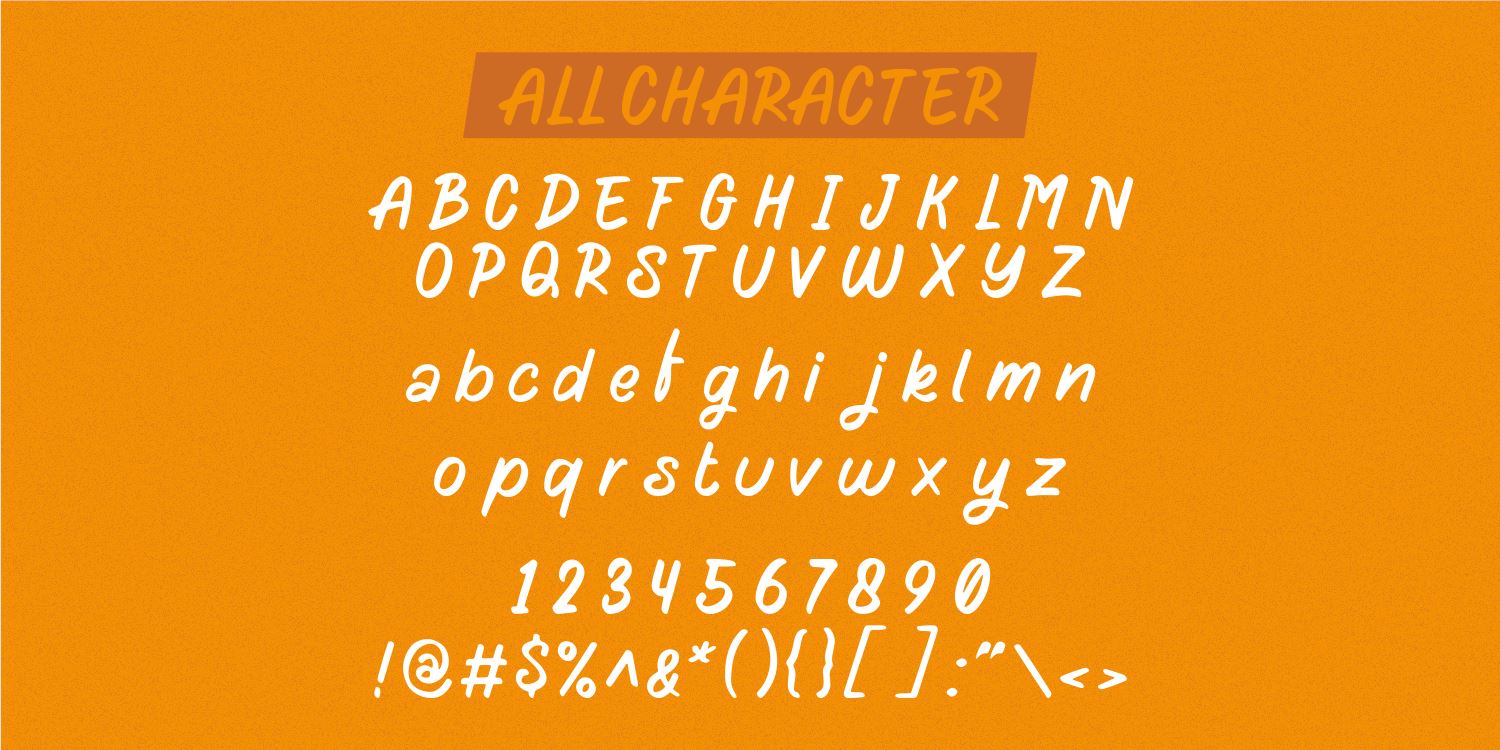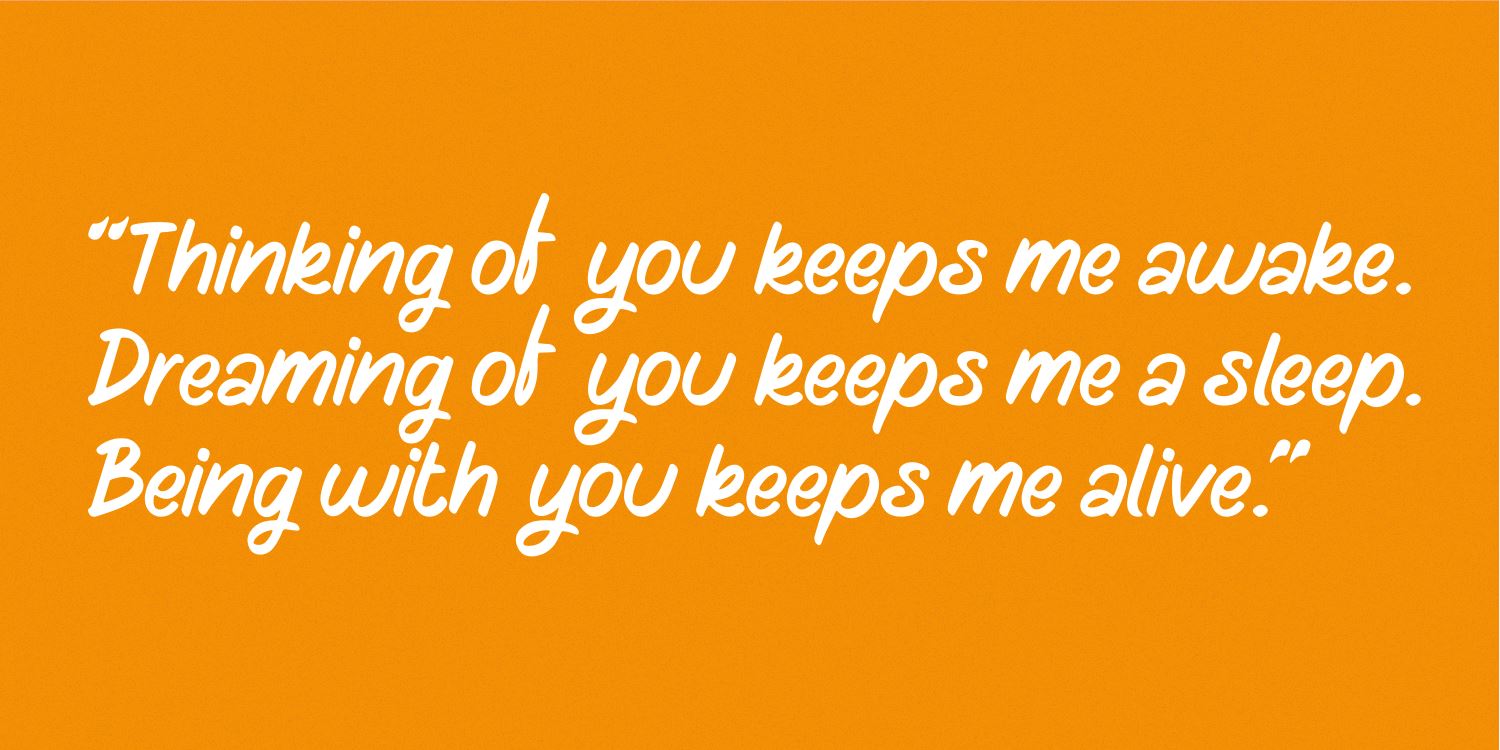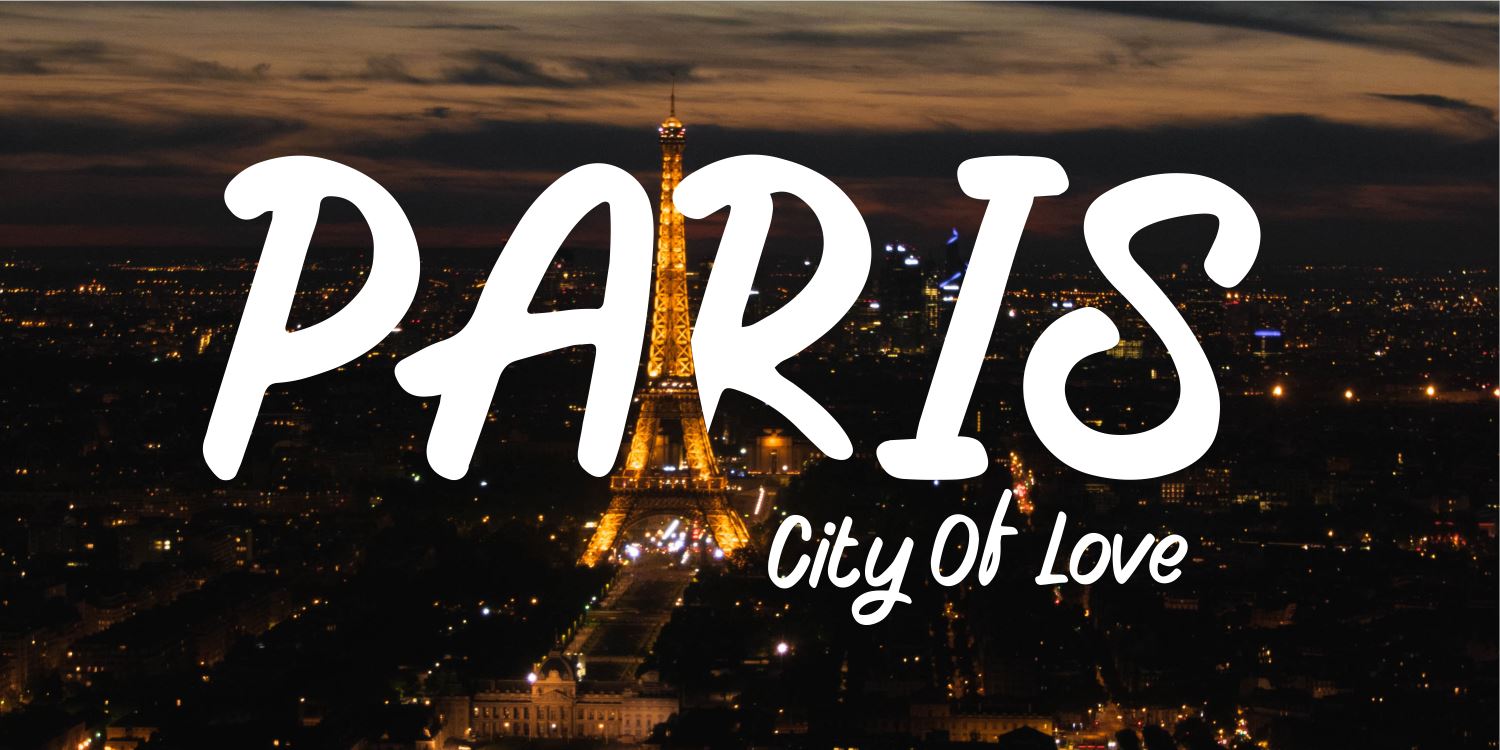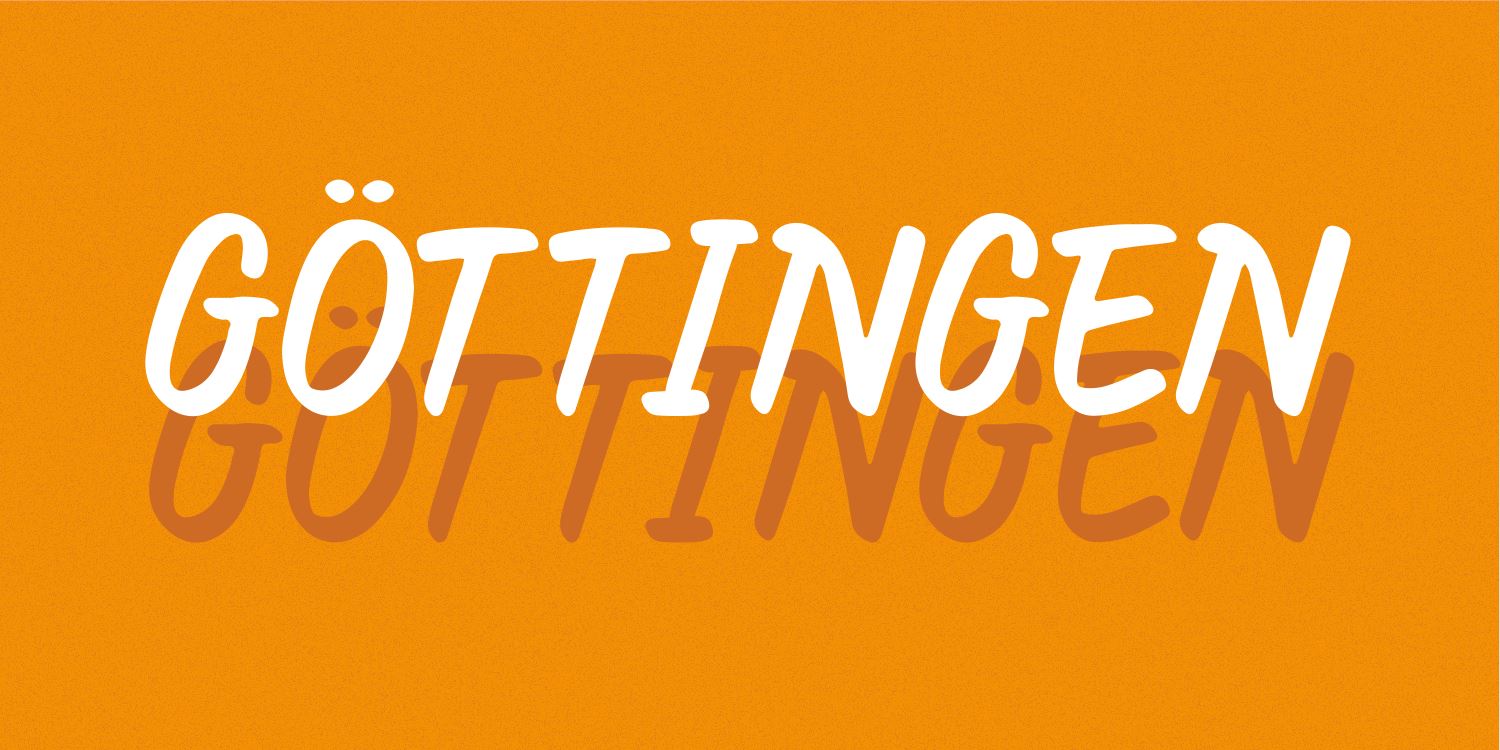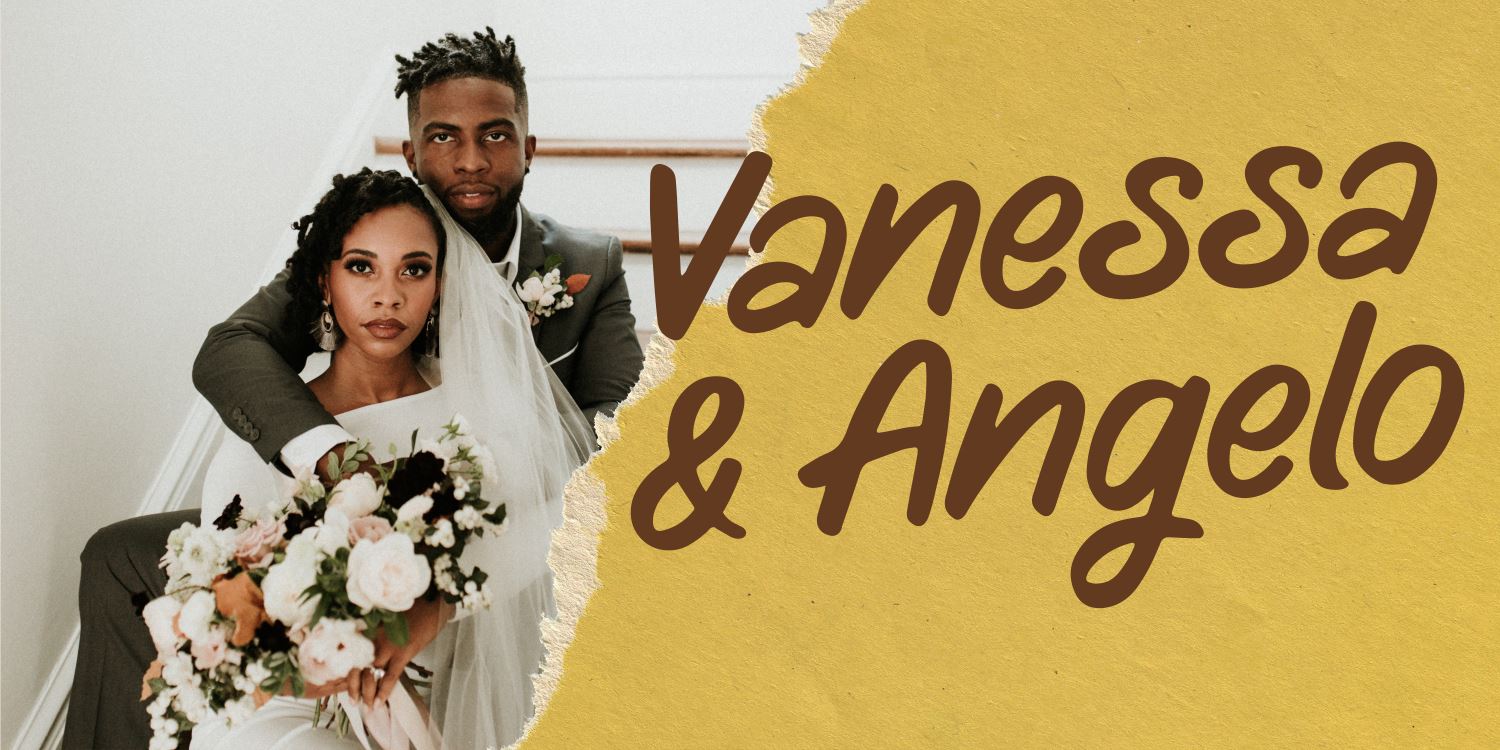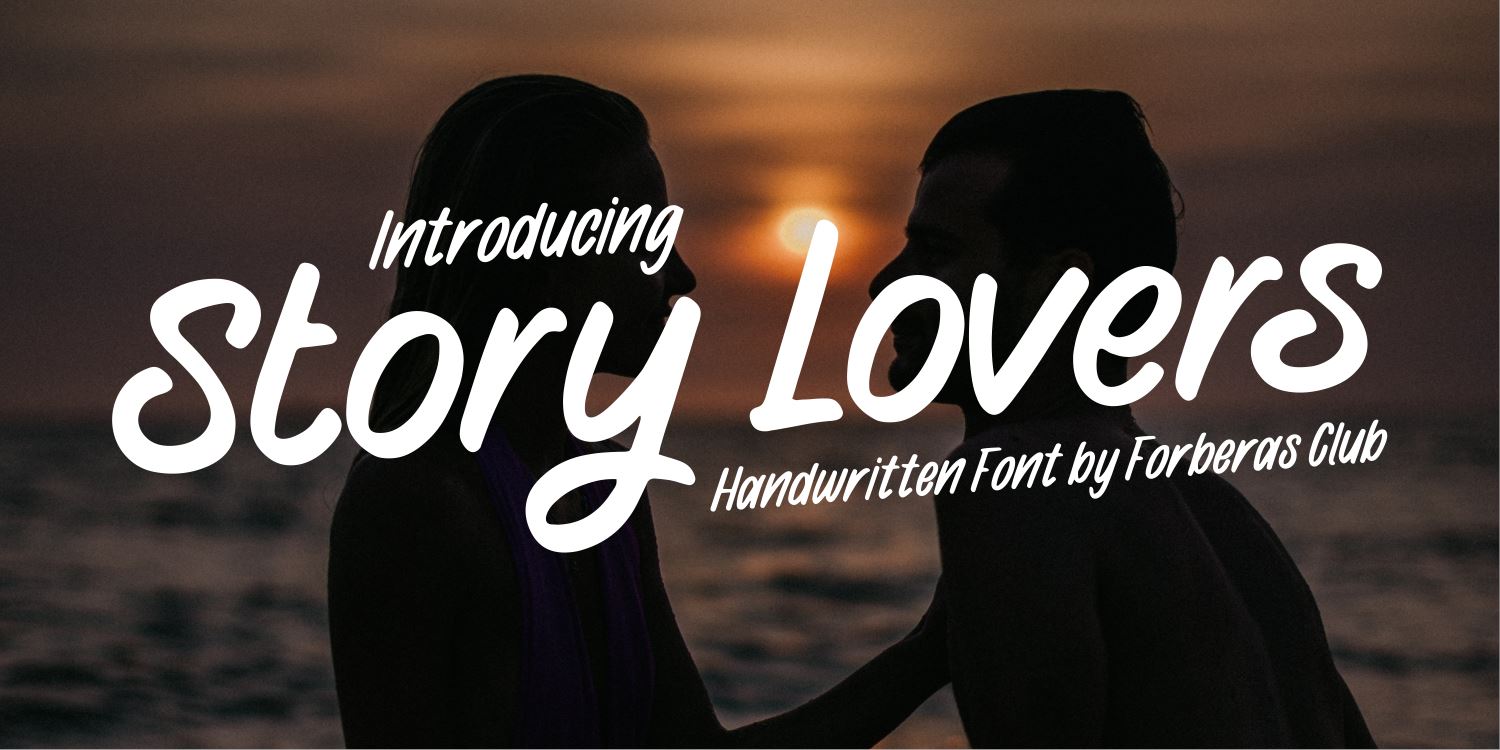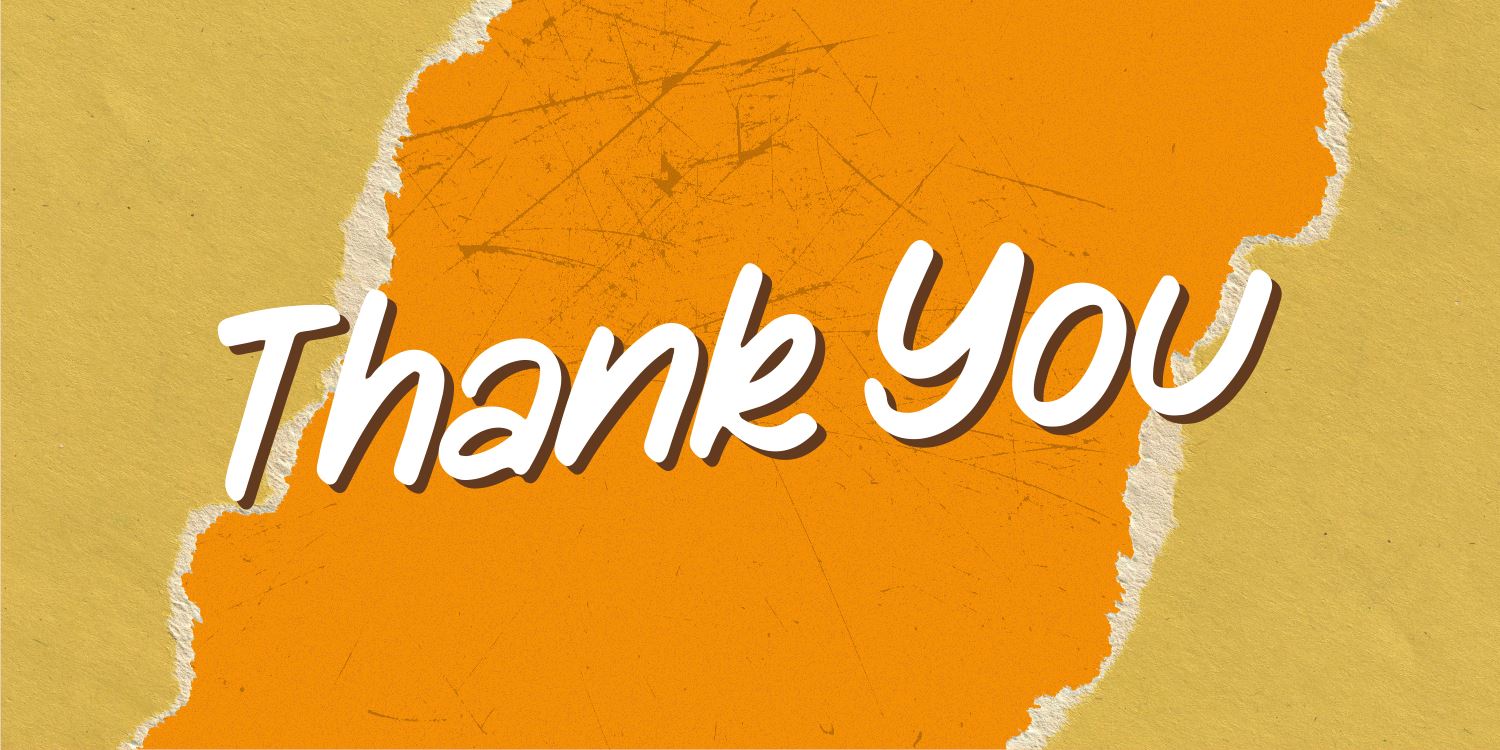
Story Lovers
Introducing Story Lovers Font by Forberas Club Story Lovers is a Modern Handwritten Font. Story Lovers is perfect for book cover, product packaging, branding project, megazine, social media, wedding, or just used to express words above the background.This font includes TTF and OTF, This font also multilingual support.